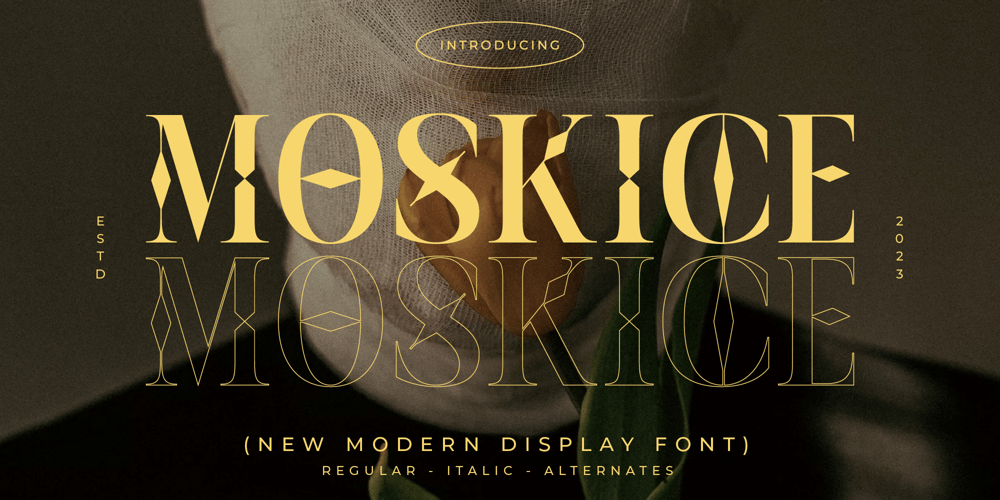
Moskice Font Family was designed by Heru Utama Putra and published by Letterena Studios. Moskice contains 2 styles and family package options. Moskice is a classic and modern typeface that has its own unique style and modern look. This typeface is perfect for an elegant & luxurious logo, book or movie title design, fashion brand, magazine, clothes, lettering, quotes, and so much more.